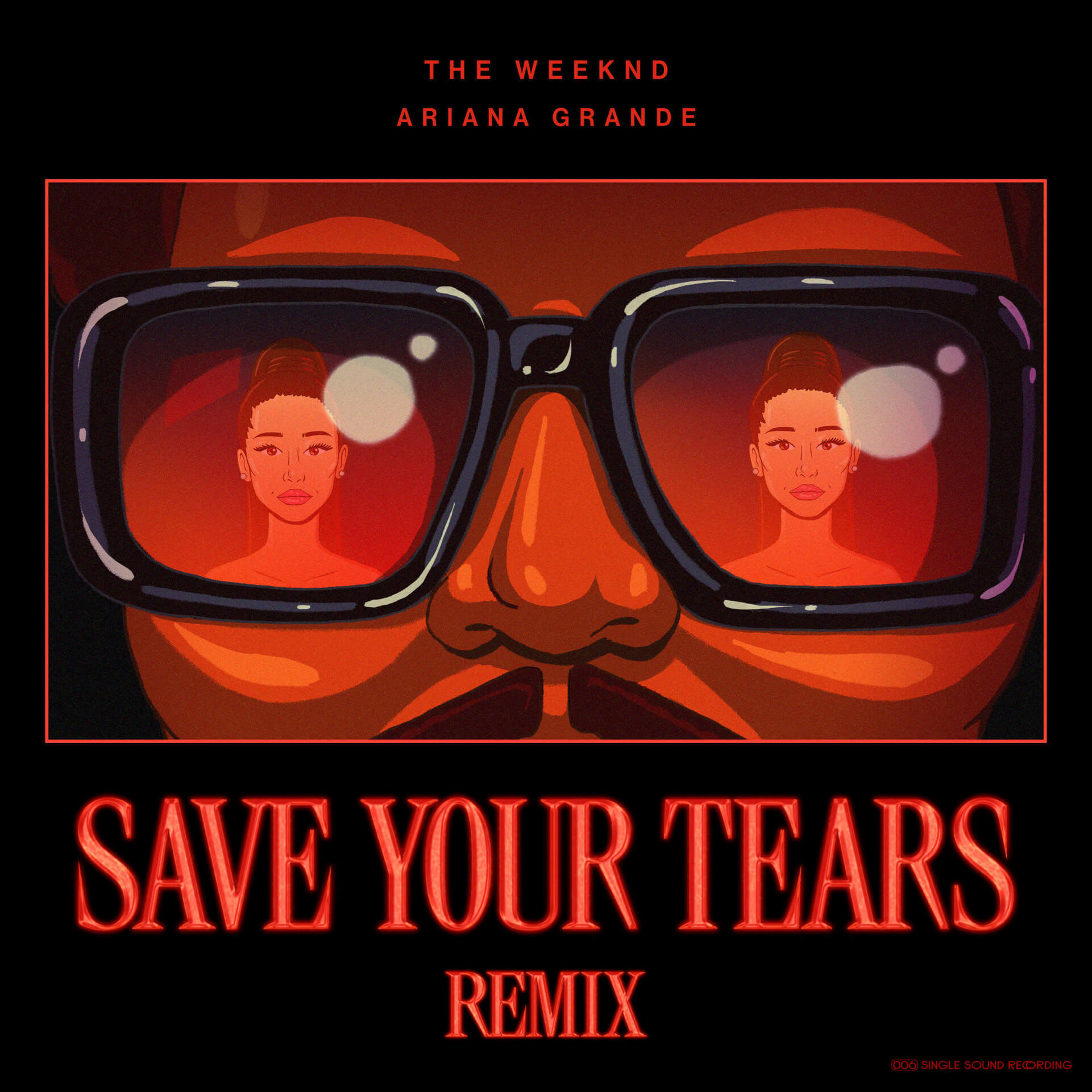
Save Your Tears Font
Fonts in UseSave Your Tears is a song from the Canadian singer The Weeknd's fourth studio album, "After Hours," which was released in March 2020. The album has received critical acclaim and includes hit singles such as "Blinding Lights" and "In Your Eyes."
The name of the single might be significantly altered and is currently using a font called Rocky Extra Condensed Regular, created by Matthew Carter, inspired by Bodoni typefaces with tapered serifs.